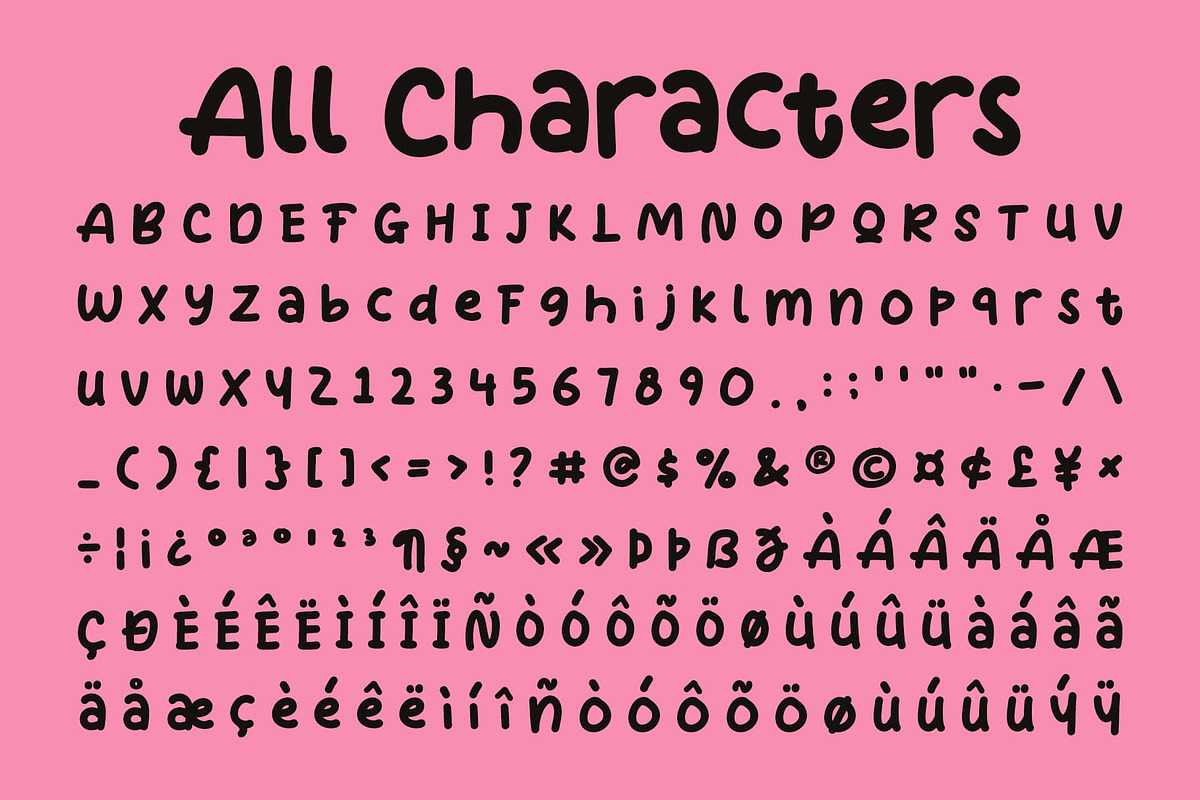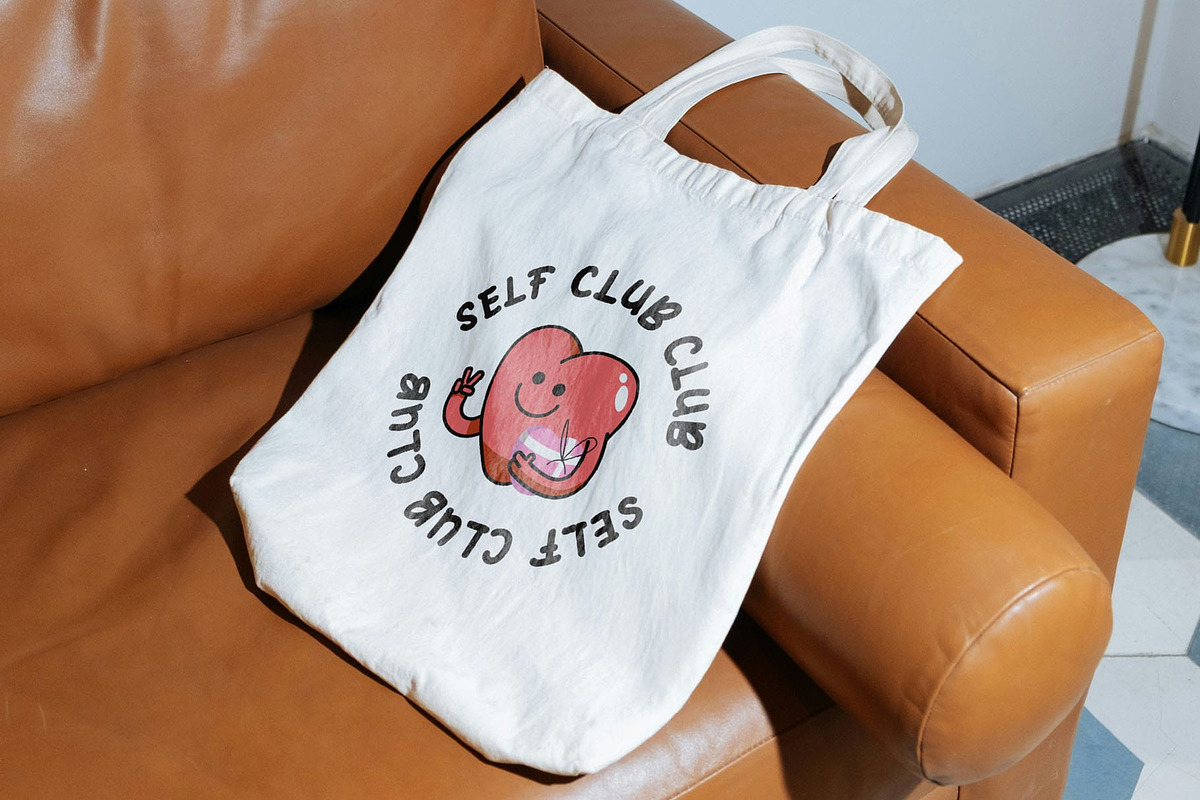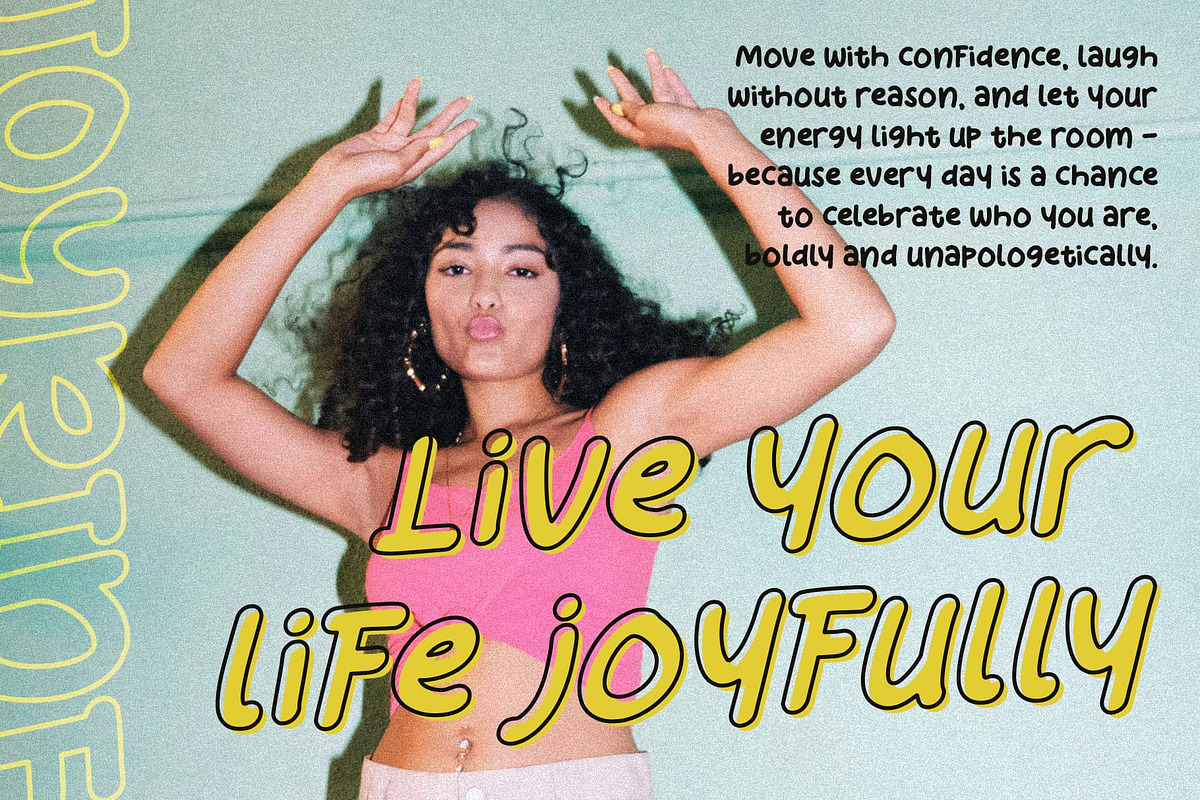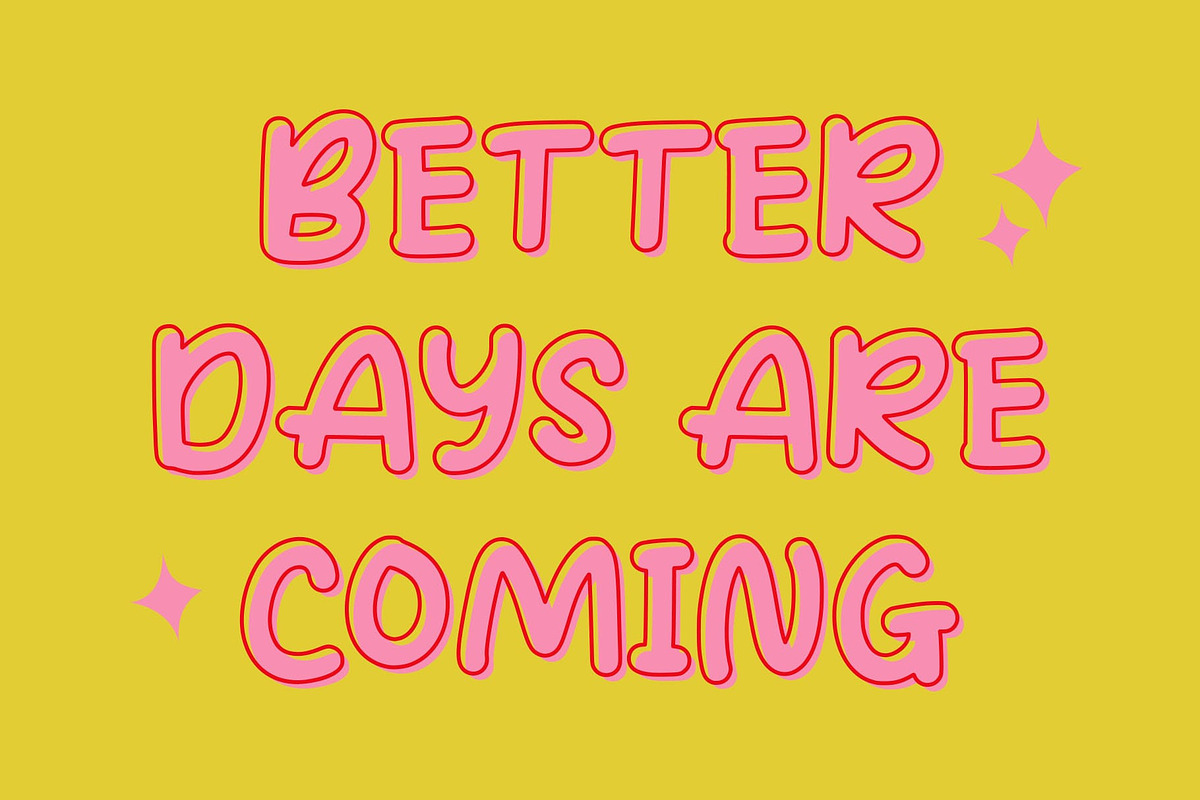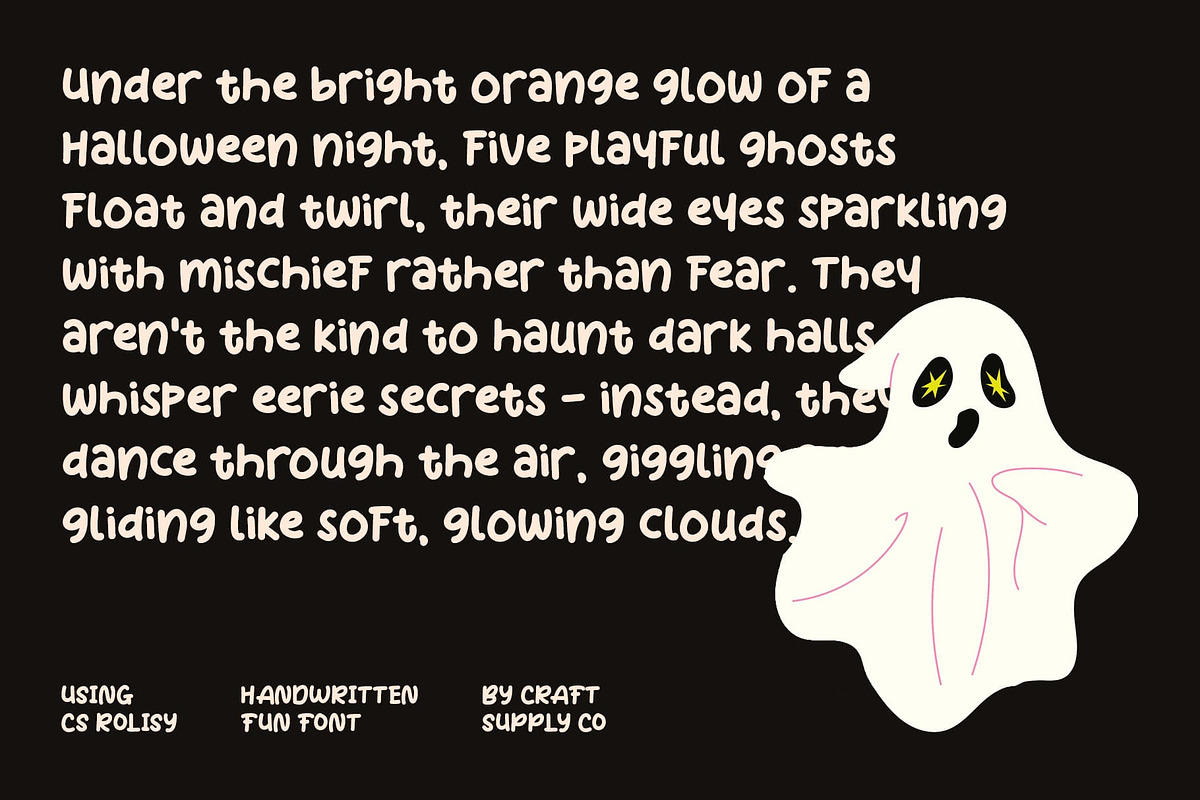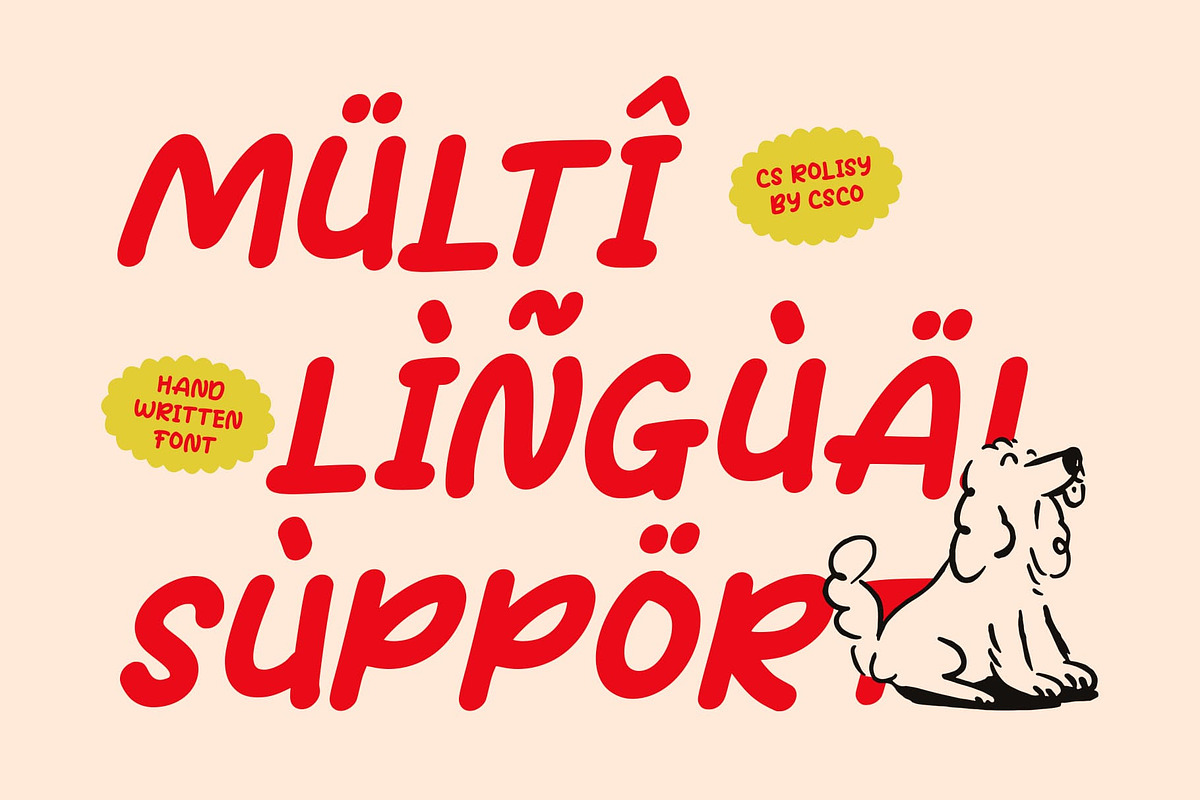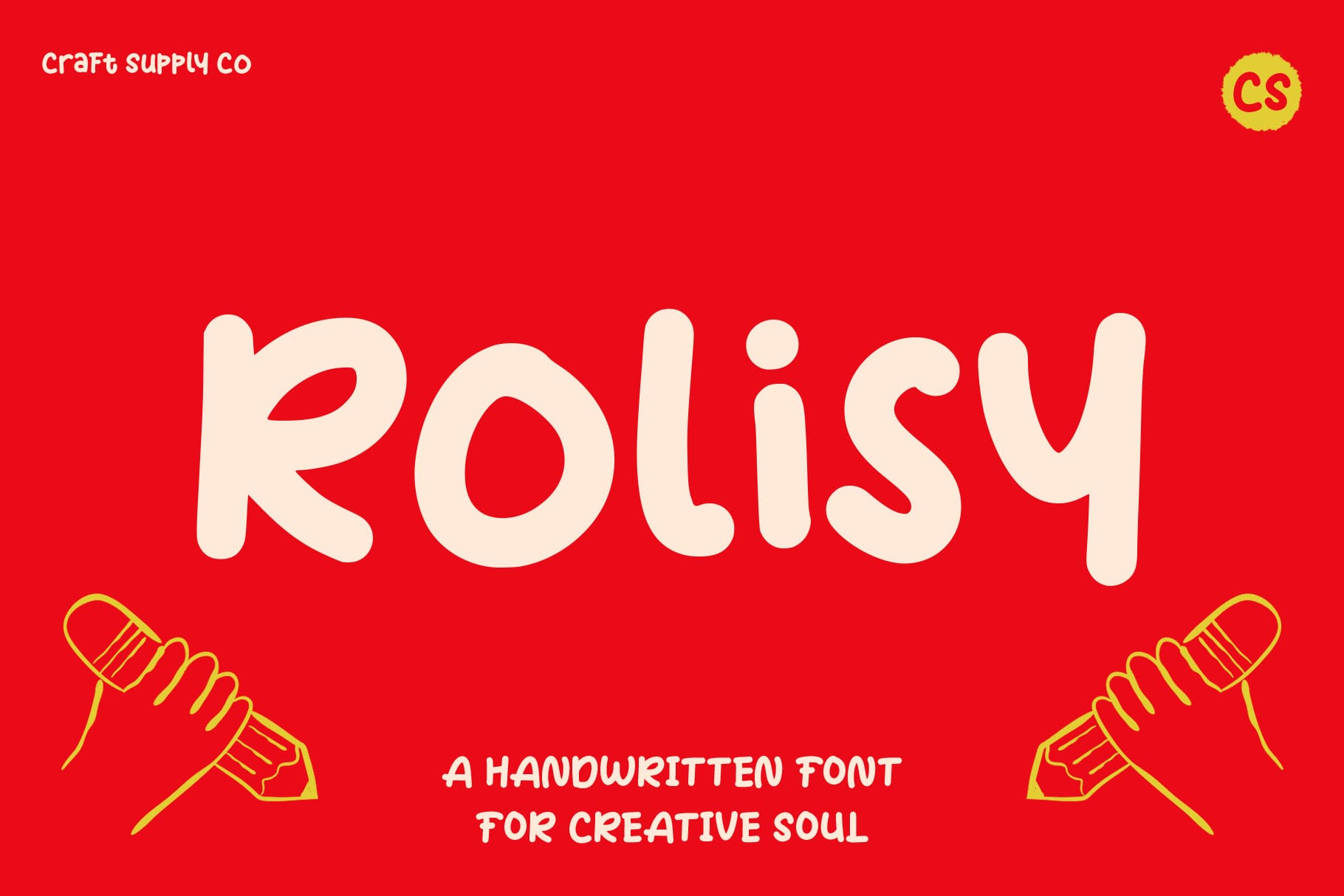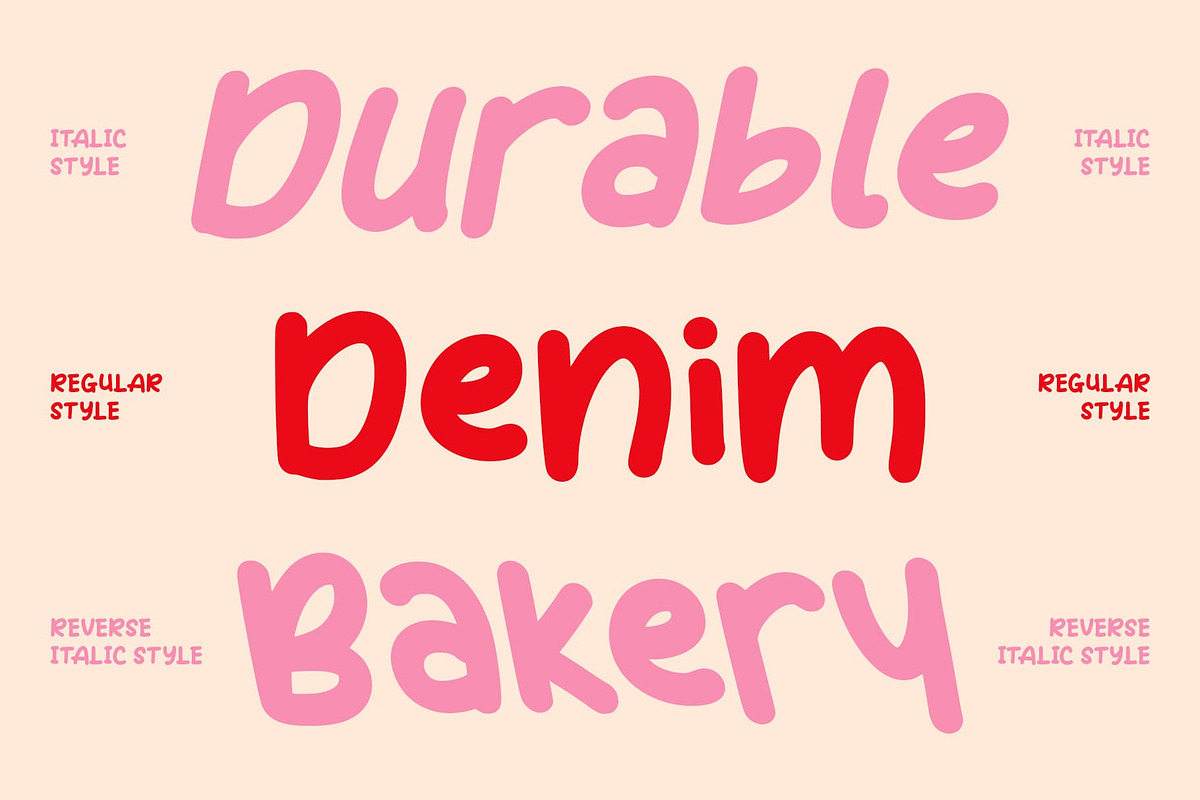
CS Rolisy – Playful Font
CS Rolisy – Modern Display Font with a Cheerful Handwritten Touch
Playful Modern Display Font This is a modern display font infused with a handwritten personality, designed to bring joy and expressiveness to your typography. Its clean, well-balanced letterforms blend structure with creativity, making every word feel both approachable and stylish.
Clean Lines with a Playful Spirit Each character in this font combines precise form with a natural handwritten rhythm. The smooth flow and neat composition create a friendly tone, while its modern style ensures clarity and visual impact perfect for projects that need to stand out while staying relatable.
Expressive and Full of Personality This font radiates positivity through its carefully crafted shapes. The font’s cheerful energy makes it ideal for playful and upbeat designs, adding life and authenticity to every composition, from headlines to product labels.
Perfect for Creative and Modern Applications Versatile and contemporary, this font fits beautifully in titles, posters, branding, packaging, and editorial layouts. Whether you’re designing for lifestyle brands, social media, or creative campaigns, this font delivers a fresh, modern, and full-of-character impression that captures attention effortlessly.